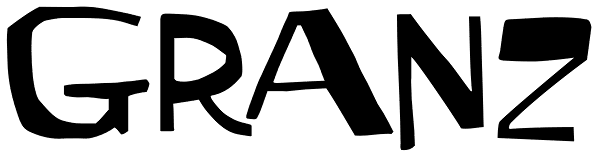
Granz
With a swinging handcut look and fanciful letterforms, Granz is inspired by the iconic Oscar Peterson’s Porgy & Bess album cover by David Stone Martin – the prolific american illustrator who created more than 400 album covers, mostly for the jazz...